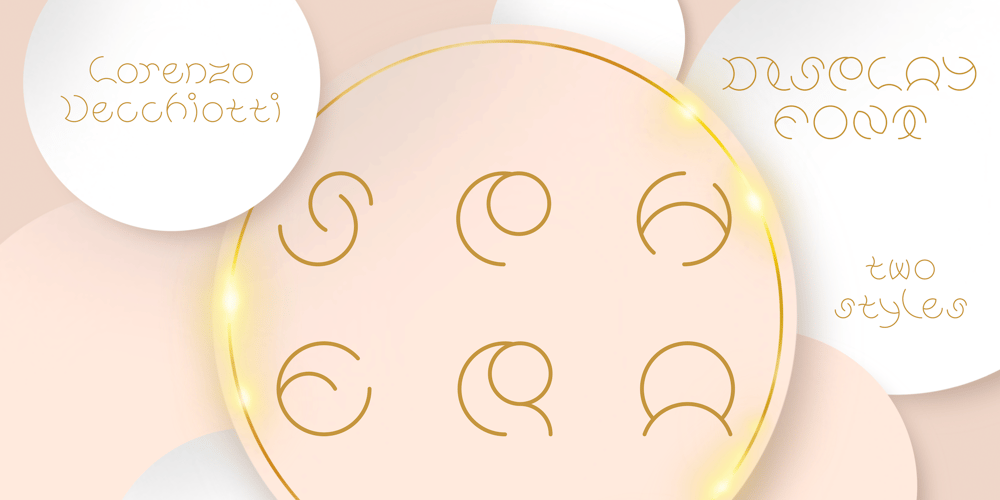
Sphera
Sphera font
Sphera Font Family was designed by Lorenzo Vecchiotti and published by Lorenzo Vecchiotti. Sphera contains 2 styles and family package options. Sphera is the second font designed by Lorenzo Vecchiotti in 2022. It is composed entirely of circles or portions of a circle. Each capital letter touches the four sides of a square. It is a thin, elegant and geometric display font that is at its best in large sizes. Learn more at lorenzovecchiotti.altervista.org